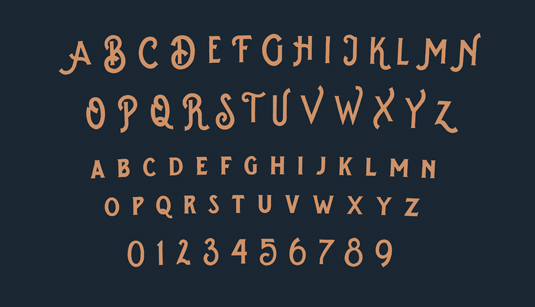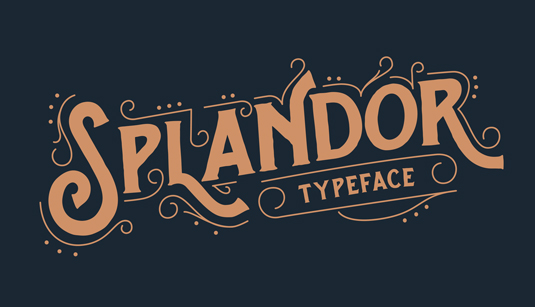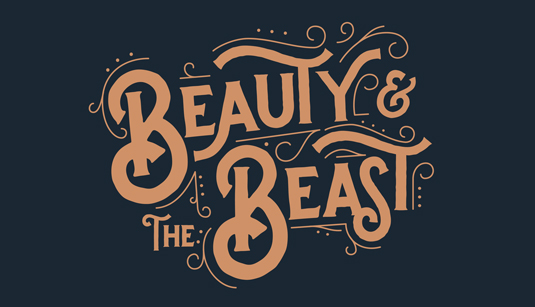
Font of the day: Splandor
Every day we showcase the best fonts on the web. Today it's Splandor by Ilham Herry.
Splandor by Ilham Herry
Today's typeface of choice is Splandor by Iilham Henry. Available from Ten Dollar Fonts, Splandor is described as a 'gorgeous vintage display typeface that is perfect for creating authentic hand drawn style type treatments'.